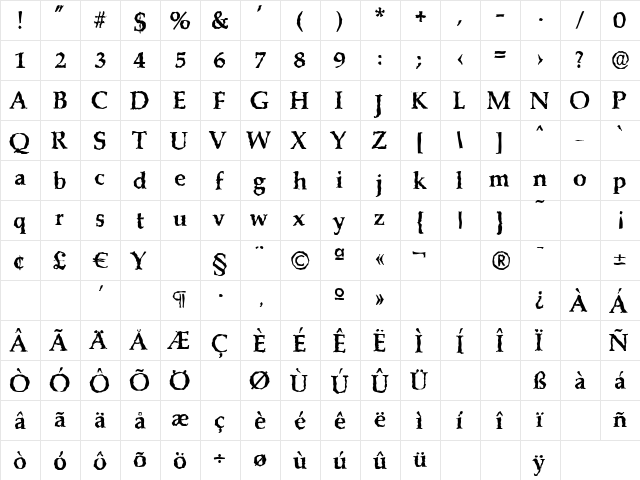
MarathonRandom Bold Font Preview
MarathonRandom Bold
Design Context for MarathonRandom Typeface
MarathonRandom takes a measured approach to typography — its balanced proportions and neutral character make it a reliable workhorse for both digital and print work. Its bold stroke weight gives it real presence on the page.